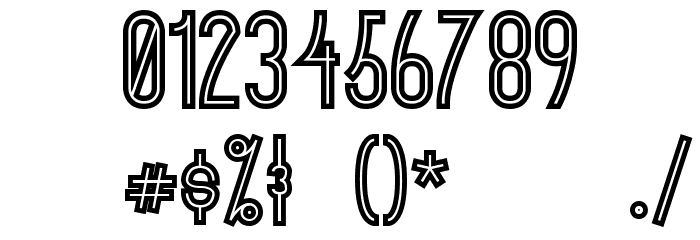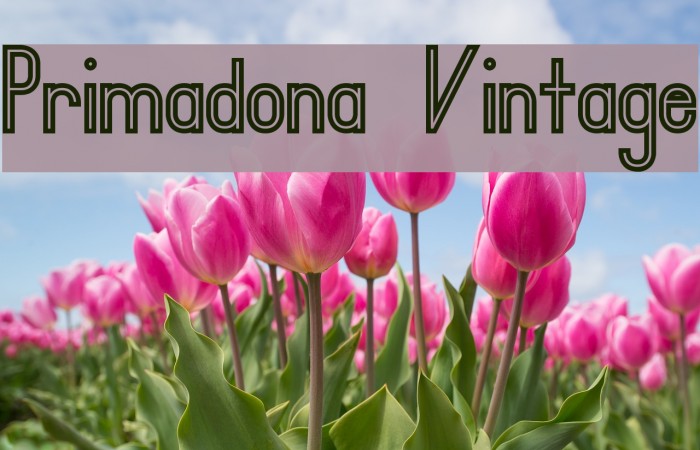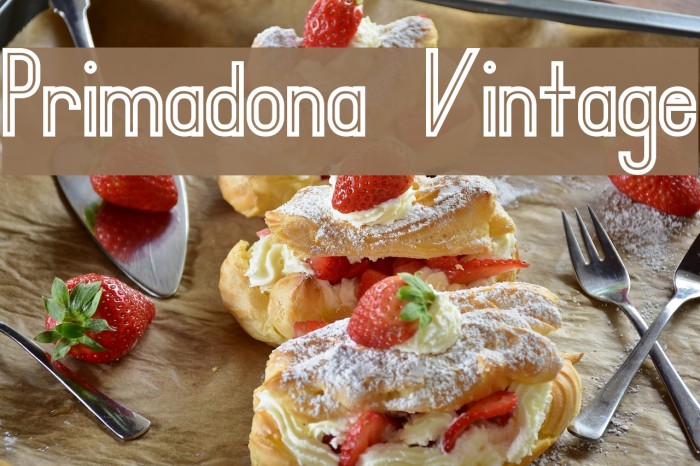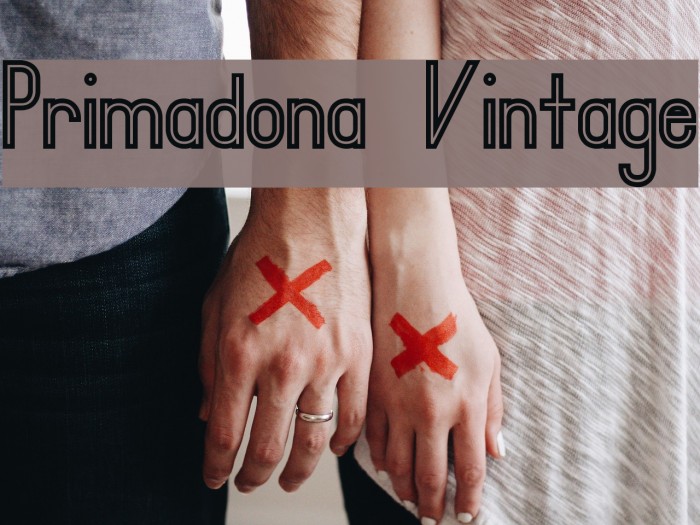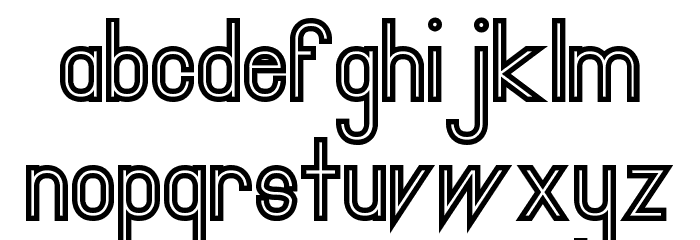
Primadona Vintage Font
Primadona Vintage Description
This font features a bold, geometric design with a vintage flair. The uppercase letters are tall and narrow, with sharp angles and clean lines, giving them a striking and modern appearance. The lowercase letters maintain the same geometric style, with a slightly more playful and rounded approach. Numbers are consistent with the overall design, offering a cohesive look. Special characters are uniquely styled, adding to the font's decorative appeal. The double-line effect within each character adds depth and complexity, making it ideal for eye-catching designs.
| Proposed Projects | Ideal for retro-themed posters, branding, logos, and headlines that require a bold statement. |